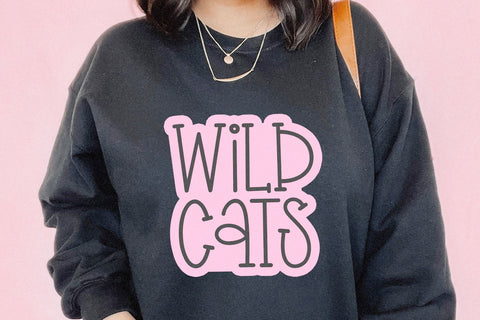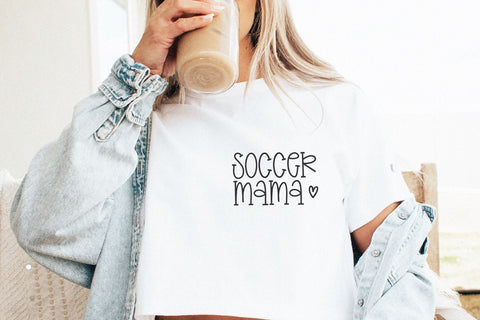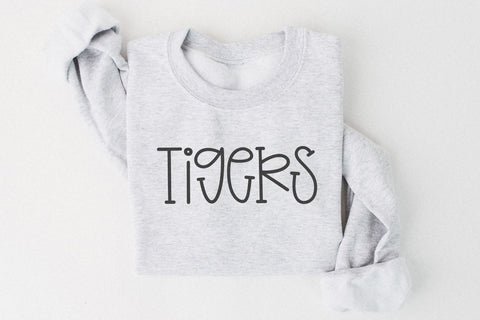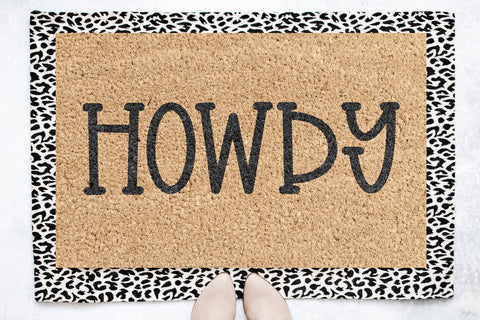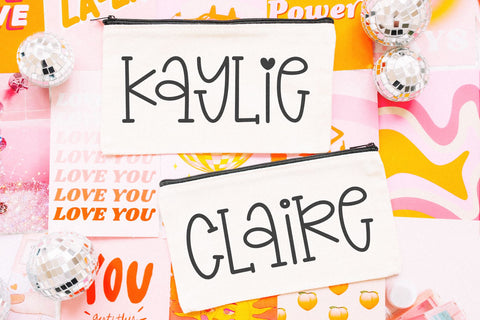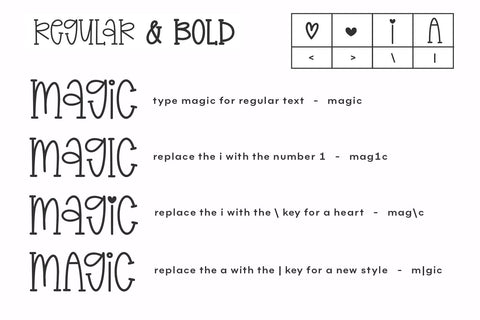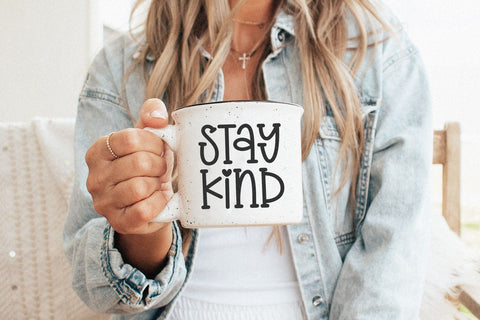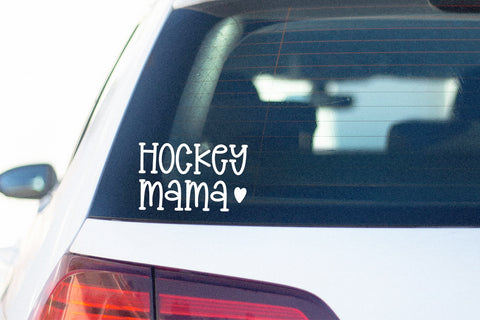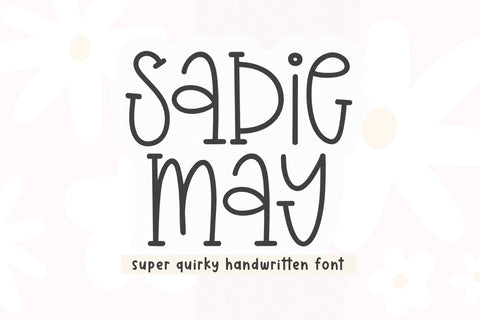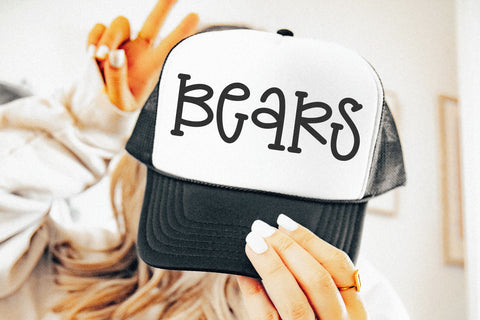
Sadie May - Cute Quirky Font
Sadie May is a cute and quirky font!
This font is perfect for cricut projects, Canva, logos, shirts, stickers, lasers / glowforge projects, sports shirts, goodnotes, teachers, quotes, procreate and more!